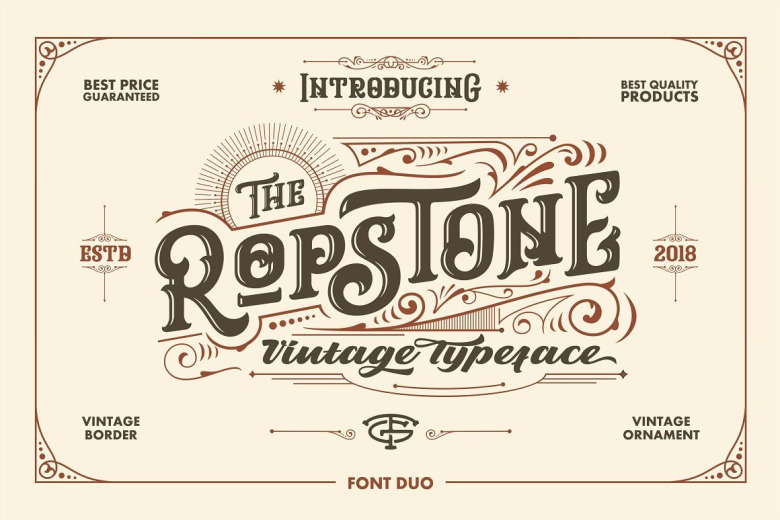
Ropstone Typeface
The following will be a new vintage typeface. Introducing Ropstone. It is was designed and shares by Graptail. Ropstone is a font display is made by hand, inspired by classic posters. Bring up your vintage passion with this font, so much inspiration as you access it. All benefits you will feel when you start to create works with Robstone fonts. What are you waiting for, the best price and best quality we give you with pride.
Ropstone comes with uppercase, lowercase, numerals, punctuations and so many variations on each characters include opentype alternates, common ligatures and also additional swash to let you customise your designs. Perfect to use for Logotype, Letterhead, Poster, Apparel Design, Label and etc.